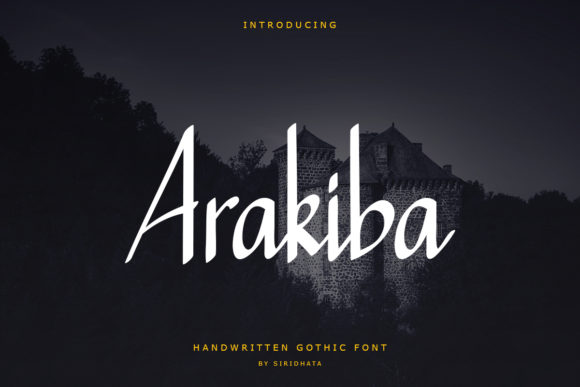
Falling in Love with Arakiba Font: A Designer’s Delight
I’ll never forget the moment I stumbled upon Arakiba Font while working on a project for a client who wanted a custom wedding invitation. I had been searching for the perfect script font for hours, and just when I was about to give up, I found Arakiba. Its unique, calligraphic style immediately caught my eye, and I knew I had found the one. In this article, I’ll share my experience with Arakiba, its features, and how to make the most of this beautiful font.
A Personal Review of Arakiba Font
What I Love About Arakiba ✨
- 💫 Elegant and modern script style that’s perfect for creative projects
- 🎨 Unique calligraphic flair that adds a touch of sophistication
- 🌈 Extensive character set, including support for multiple languages
- ⚠️ Some users may find the font a bit too ornate for certain projects
- ⚠️ Limited availability of bold or heavy weights
The Story Behind Arakiba Font
Arakiba Font was designed by a team of typographers who wanted to create a unique, modern script font that would add a touch of elegance to any project. Inspired by traditional calligraphy, Arakiba features a distinctive style that’s both playful and sophisticated. The design team spent countless hours perfecting the font, ensuring that it would be highly legible and versatile.
| Font Name | Arakiba Font |
| Author | siridhata |
Q: What is Arakiba Font?
A: Arakiba Font is a modern script font with a unique, calligraphic style.
Q: Does Arakiba Font support multiple languages?
A: Yes, Arakiba Font features an extensive character set, including support for multiple languages.